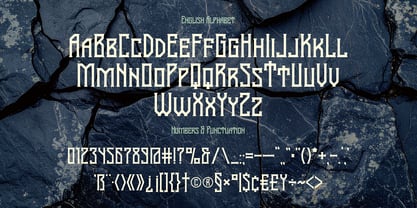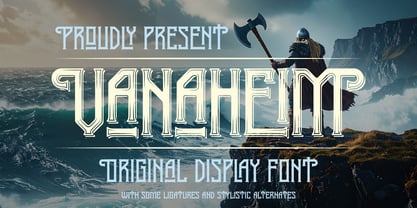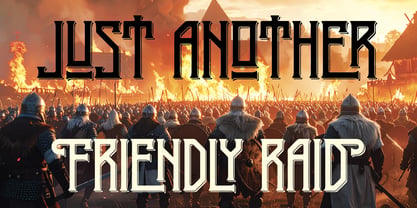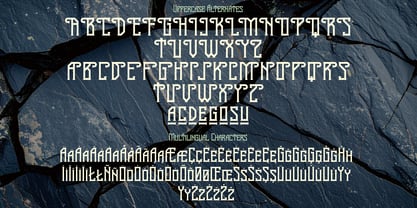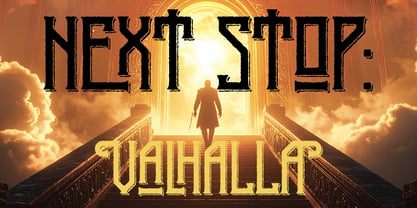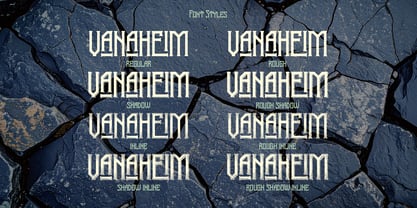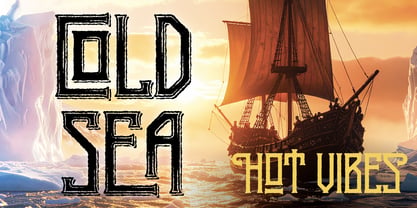
Vanaheim
by Vozzy
The Vanaheim Font Family was designed by Oleg Voznyy and published by Vozzy. Vanaheim contains 8 styles and family package options. More about this family
Introducing the captivating font family "Vanaheim," designed specifically for headlines, accent inscriptions, and any project that requires attention-grabbing typography. This unique font features an extensive range of additional characters, punctuation marks, and multilingual support, making it versatile for various applications. With a rich selection of standard ligatures, Vanaheim enhances the visual appeal of your text (ensure your software supports this OpenType feature). Perfect for branding, web design, and editorial projects, Vanaheim will elevate your beautiful designs to new heights!